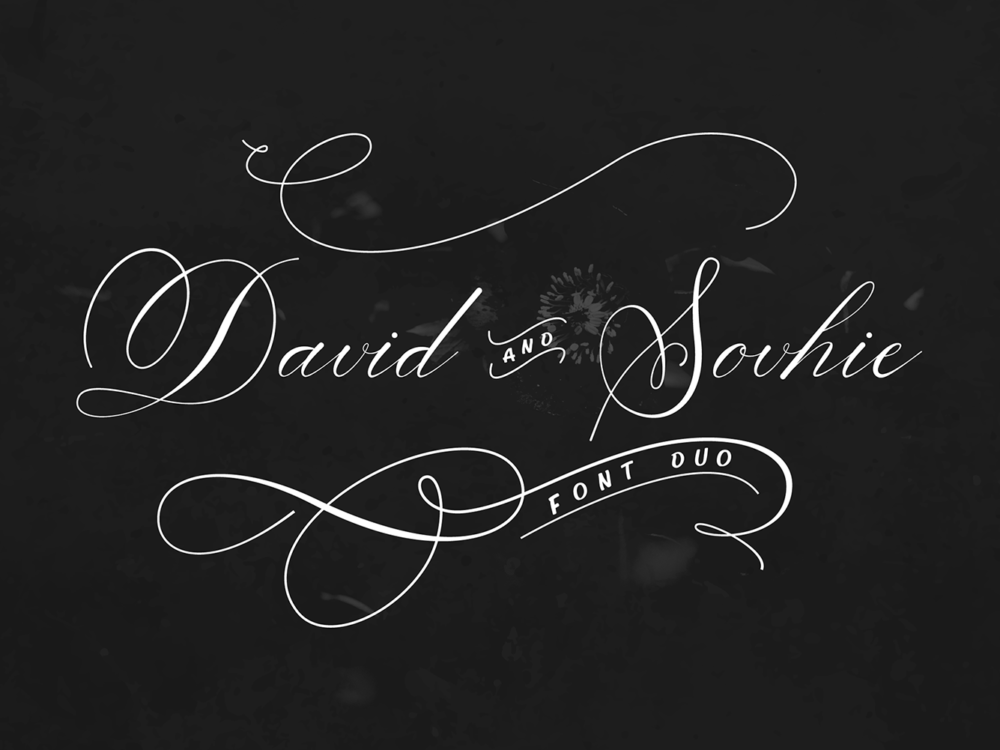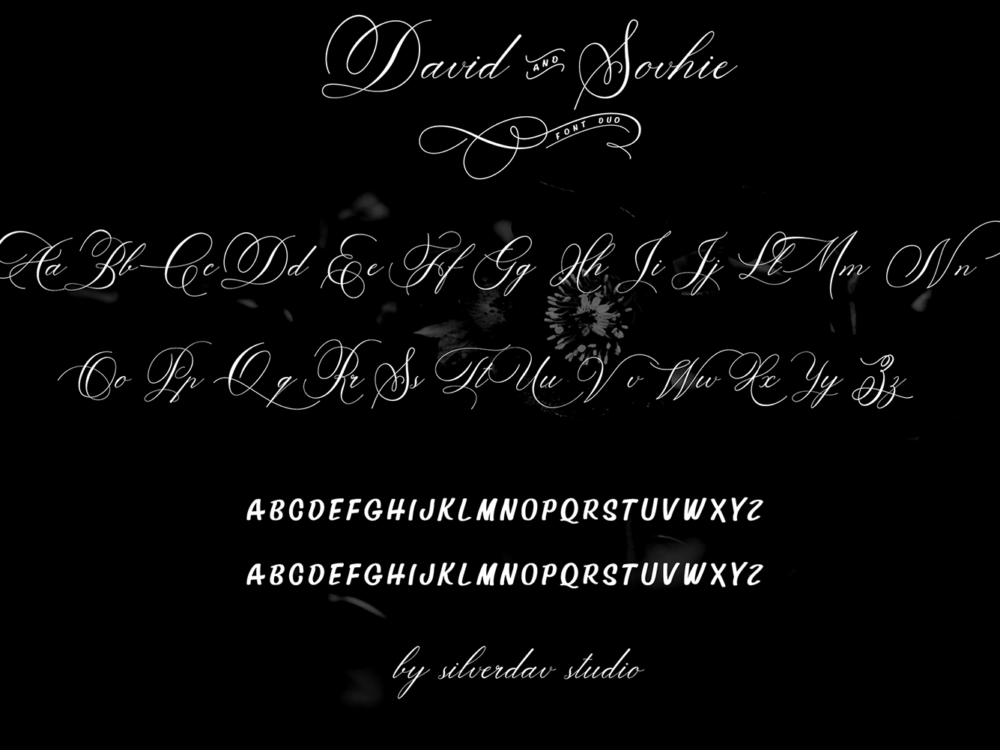
David and Sovhie Free Font
Free Brush Font
David and Sovhie Free Font is a unique typeface that has both brush and calligraphic features. You can use this font to create unforgettable beautiful posters, cards, invitations, prints, or use it in web design. unleash your creativity using David and Sovhie Free Font. Please, contact the author to purchase the fonts for commercial use.